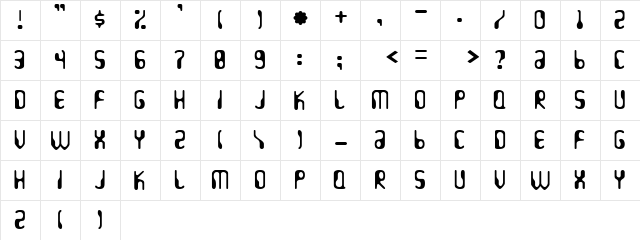
HydrogenWhiskey Regular
Design Context for HydrogenWhiskey Typeface
HydrogenWhiskey offers clean, dependable letterforms without strong stylistic allegiance, making it a practical choice for designers who need flexibility.